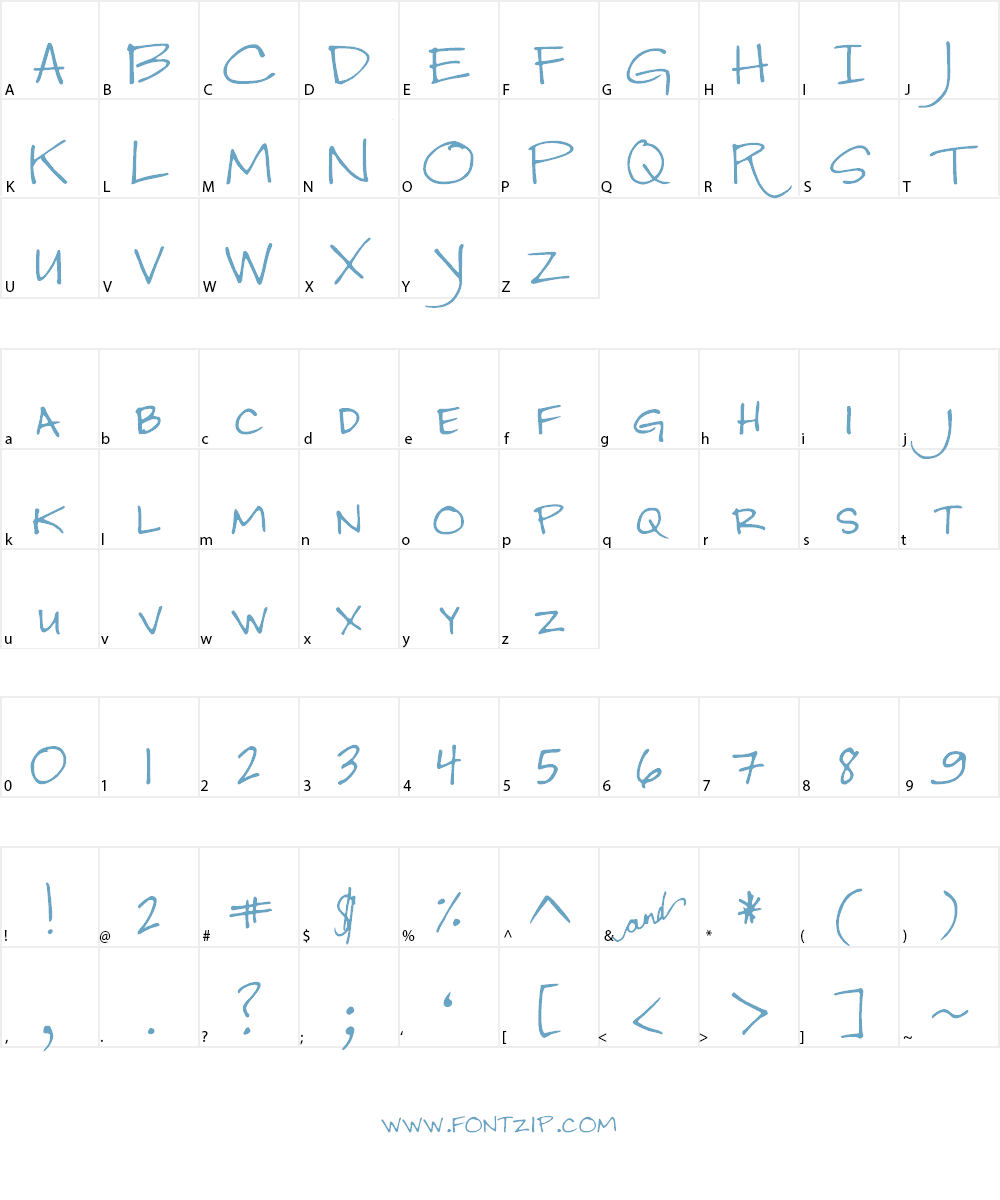
Want a unique handwritten font that's great for displays and text as well as invitations? DJB Jenna is perfect! It also contains European language characters.